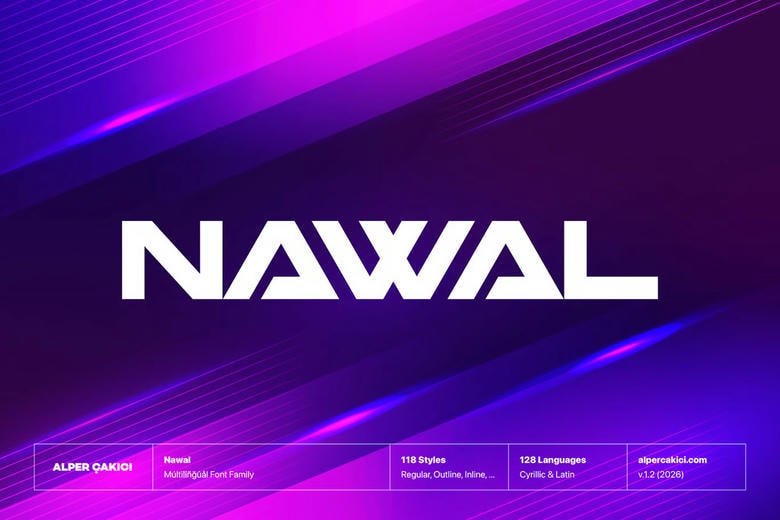
Nawal Font Family
Nawal is a bold, futuristic display typeface with wide geometric shapes and a strong, modular structure. Sharp details and expressive textures make it versatile for different uses.
Nawal includes Circular and Rounded subfamilies, which add softer curves and new shapes while keeping a futuristic look. Inline, Outline, Rimmed, and Traced styles give you more choices, making Nawal a good fit for logos, posters, headlines, packaging, and editorial projects.